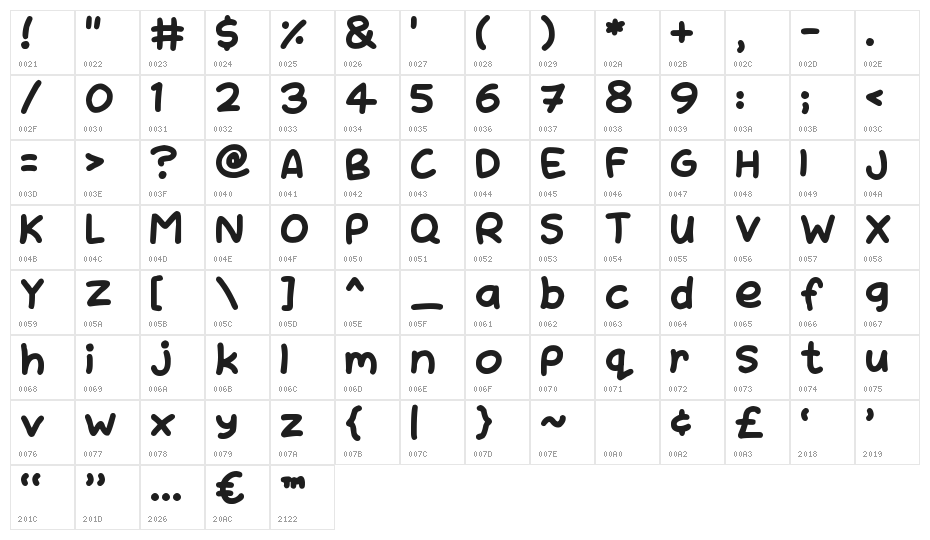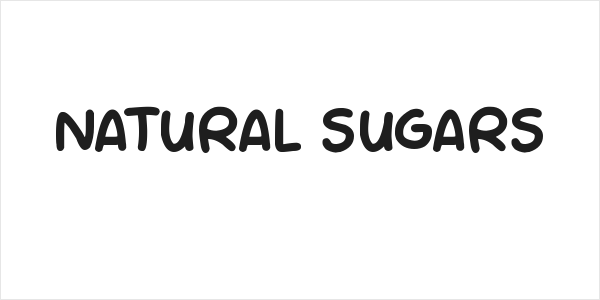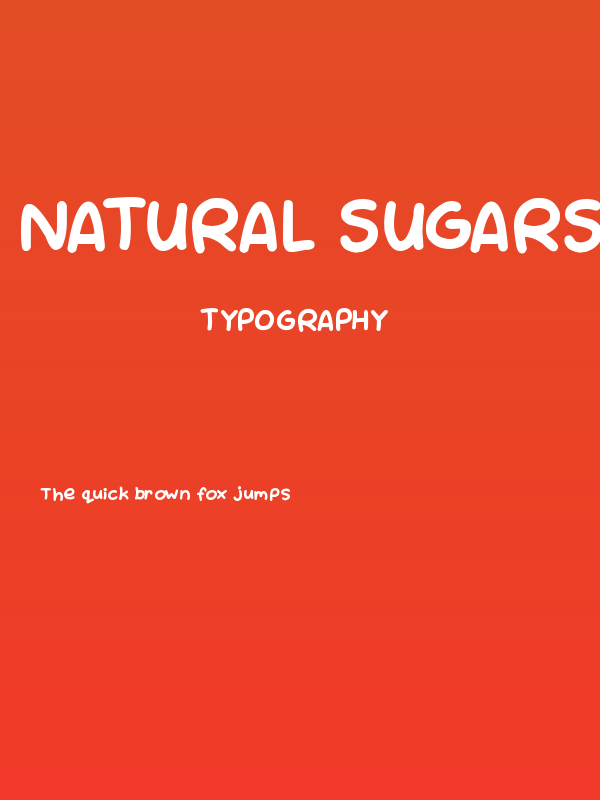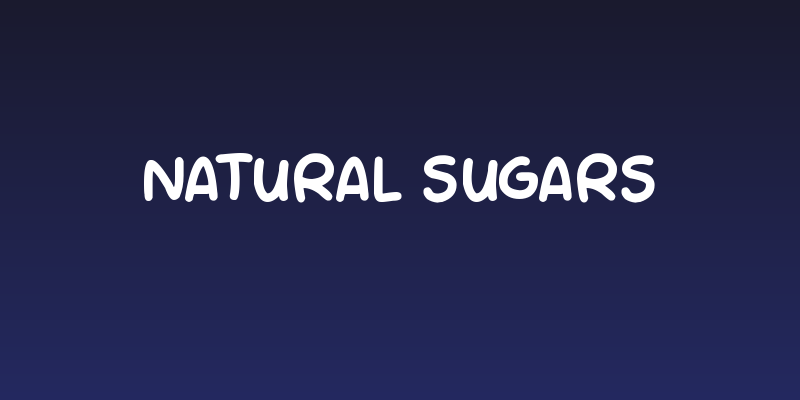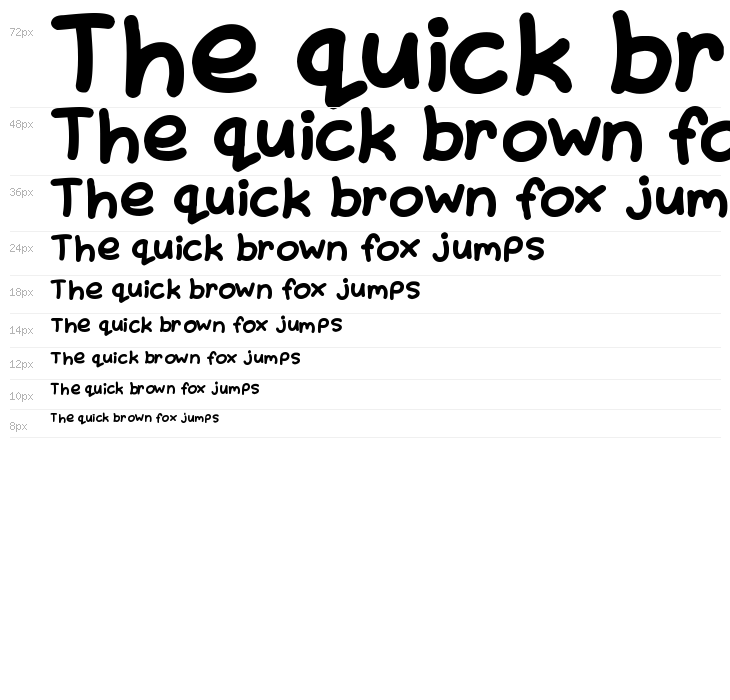
NATURAL SUGARS Font
NATURAL SUGARS Description
This playful and rounded font exudes a friendly and approachable vibe, making it ideal for projects that require a touch of whimsy and warmth. The characters are bold and slightly irregular, giving them a hand-drawn appearance that adds to their charm. The font maintains a consistent stroke width, contributing to its clean and cohesive look. Its rounded edges and smooth curves make it particularly suitable for children's books, playful branding, or any design that aims to convey a sense of fun and creativity.
| Proposed Projects | Ideal for children's books, playful branding, greeting cards, and creative posters. |